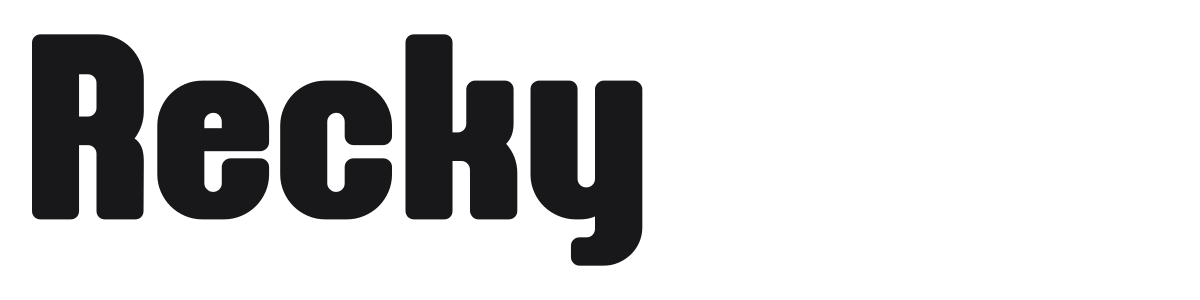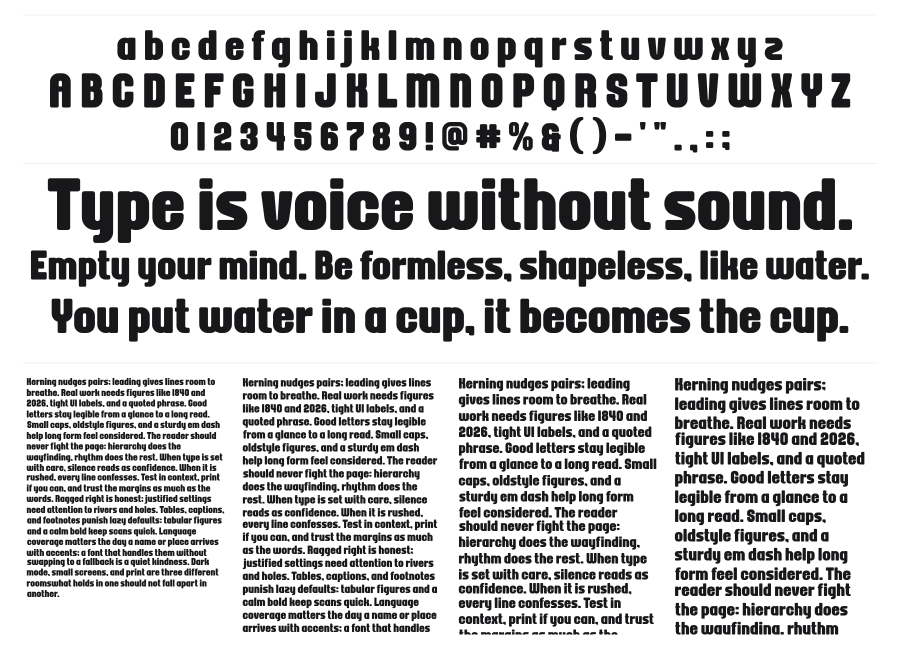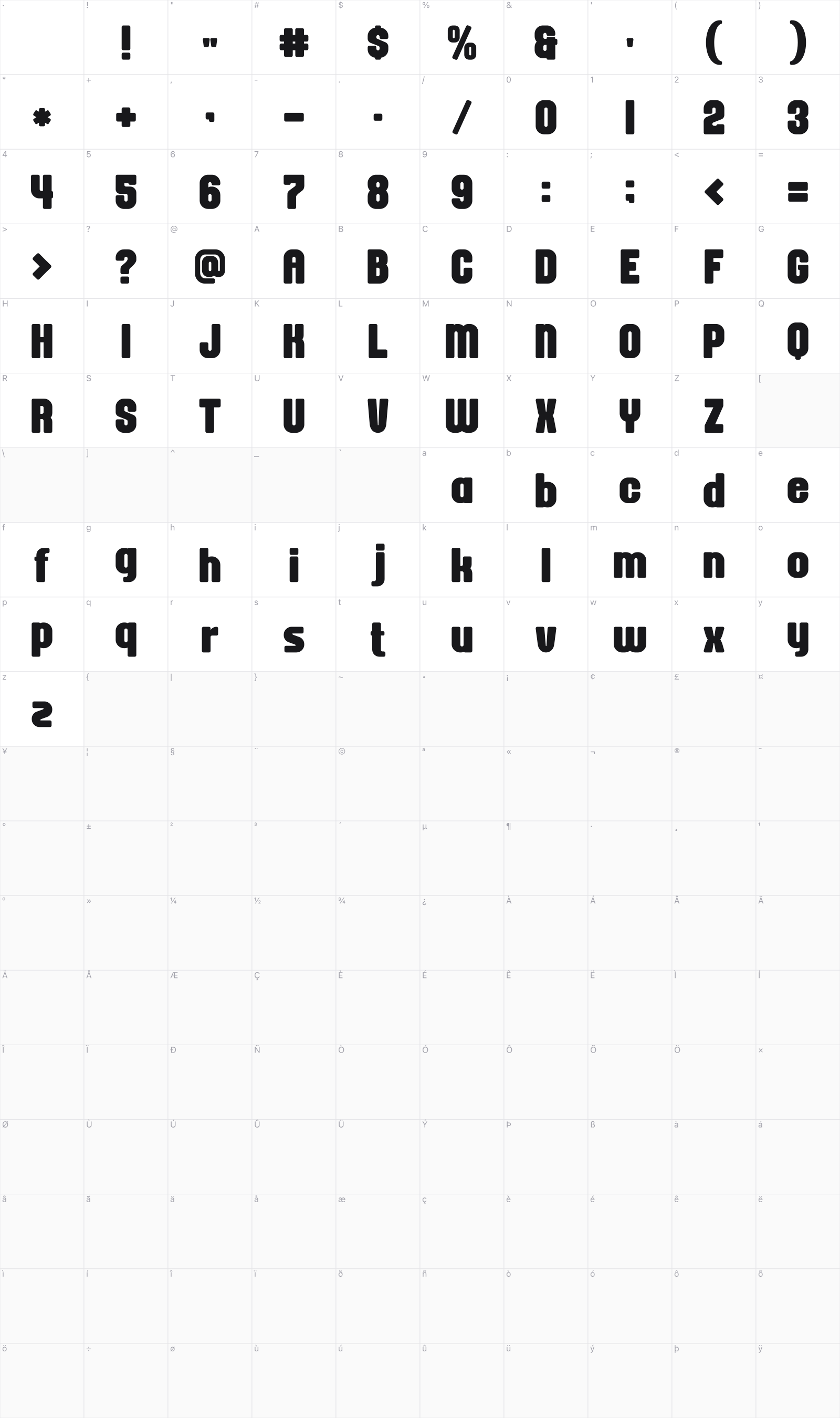
Recky
Recky is a heavy condensed grotesque with thick, blunt strokes and subtly rounded interior corners that keep it from feeling harsh. The extreme weight and tight spacing generate a lot of visual pressure, making it effective for posters, logos, and headlines that need to command attention. There is something in its construction that reads both industrial and approachable.